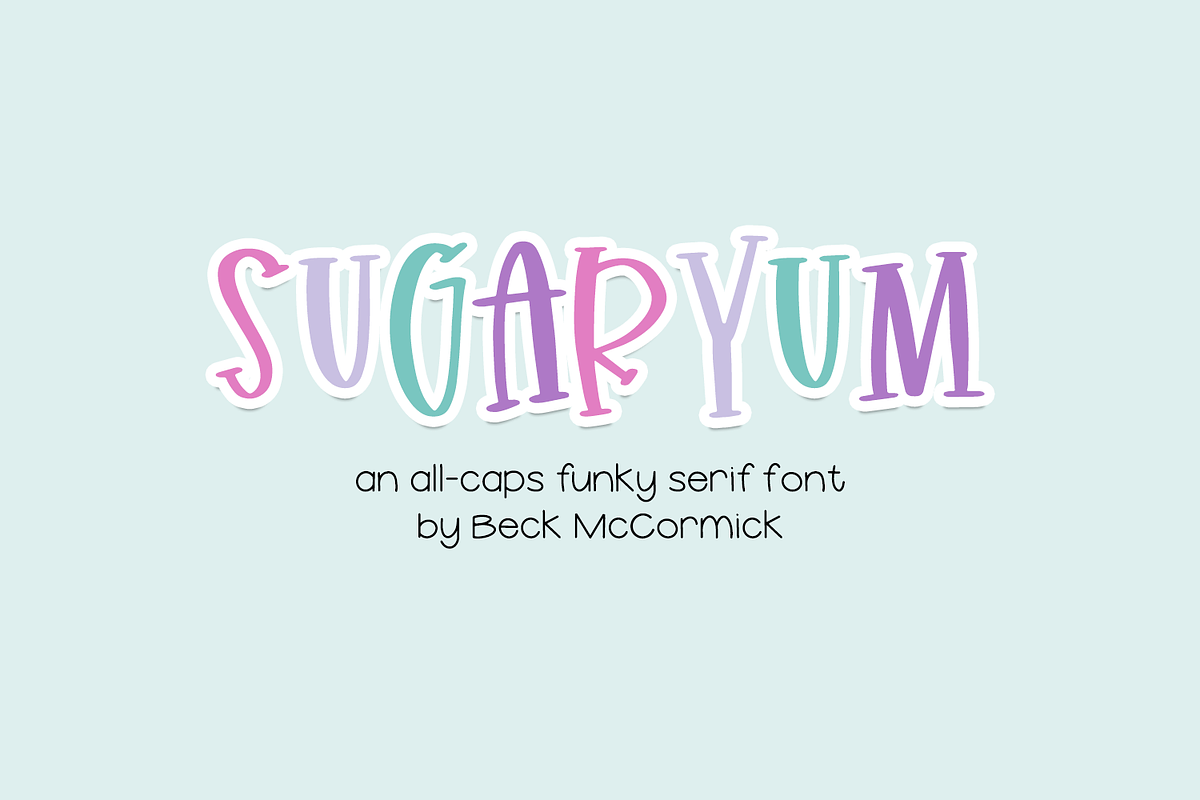
Sugaryum Serif Font Free Download
Please note, to use this font for commercial purposes, you must purchase the full version. Sugaryum is a stylish and elegant serif font that combines sophistication with a modern touch. Perfect for logos, branding, invitations, editorial designs, and more, this font adds a refined and classy feel to your work. Whether you're creating a high-end brand, a chic event invitation, or a professional marketing campaign, Sugaryum brings an elevated and timeless style to your designs. Test it out and enjoy free download access for personal use. Experience the elegance of Sugaryum Serif Font Free Download before purchasing the commercial license. Add a touch of elegance and style to your designs with Sugaryum.